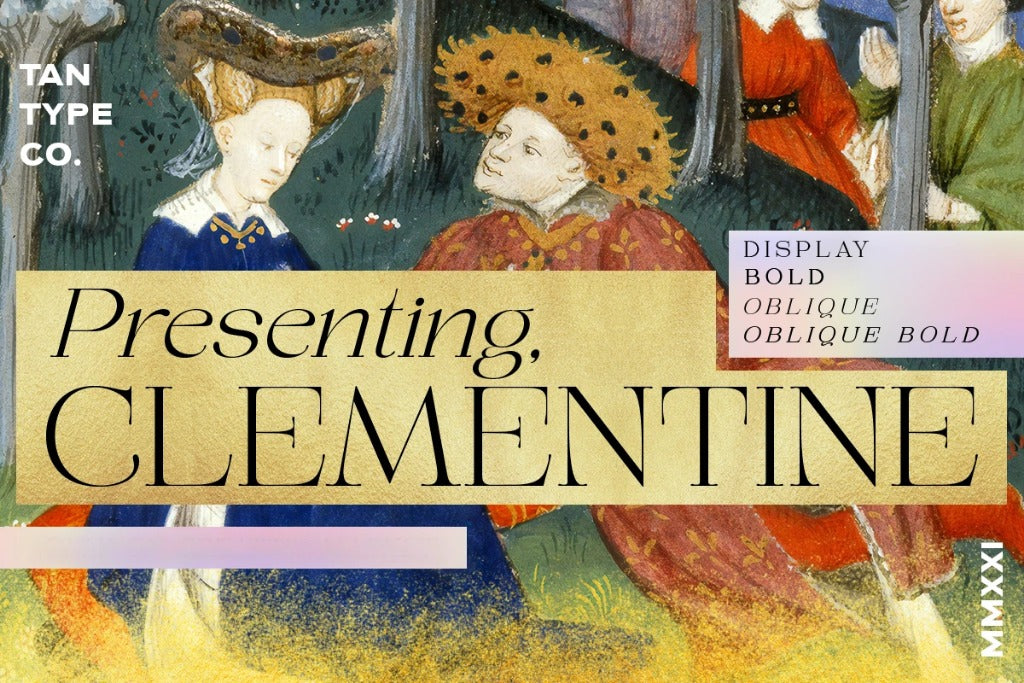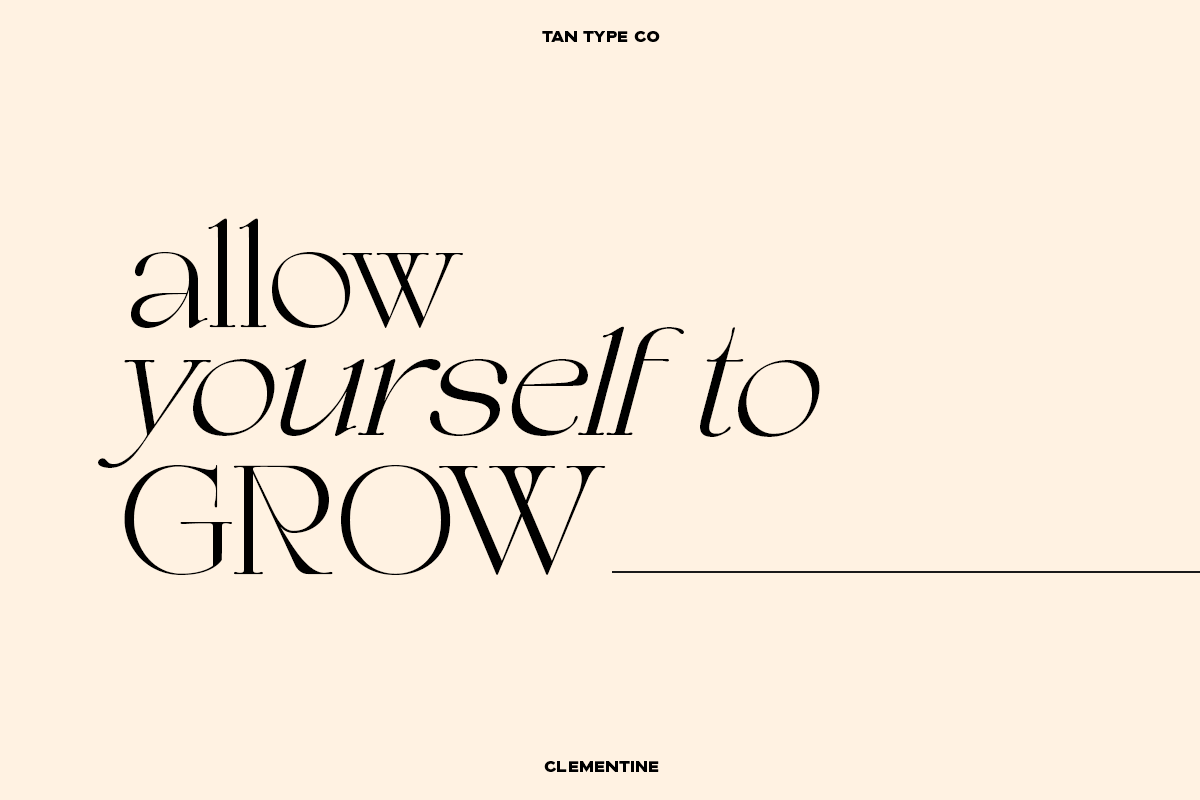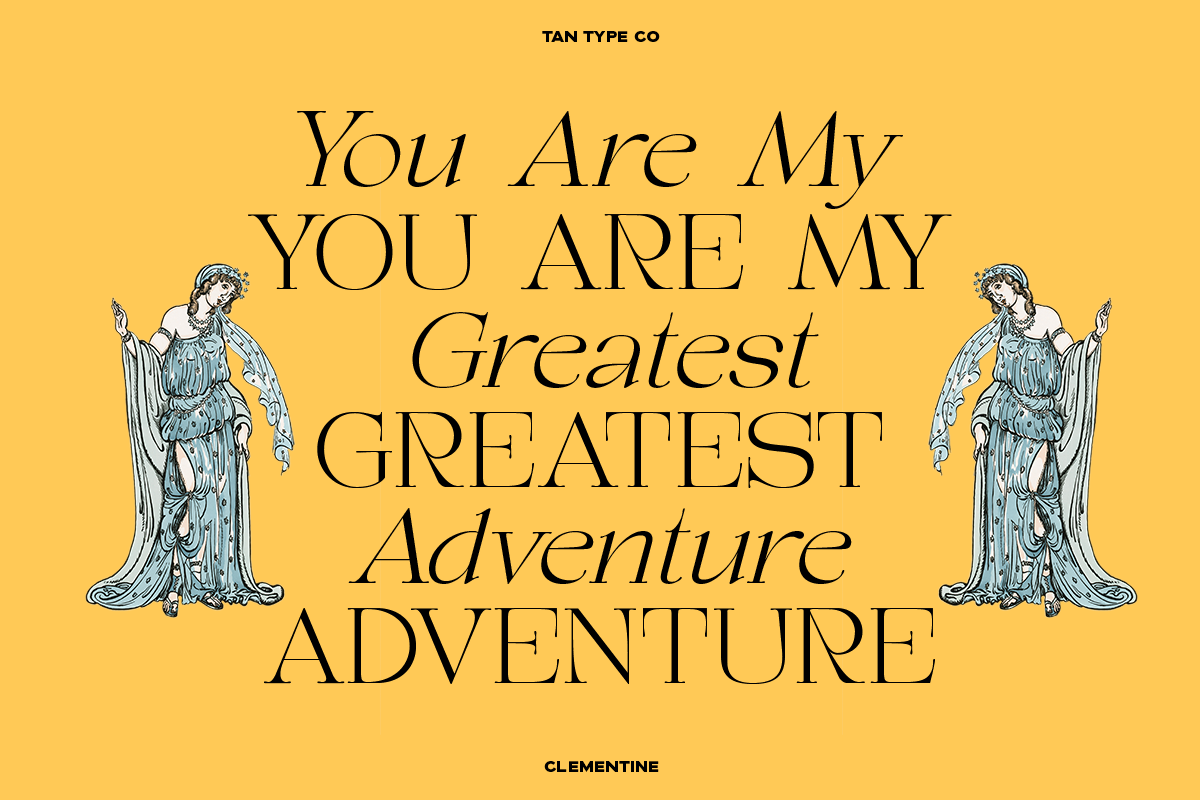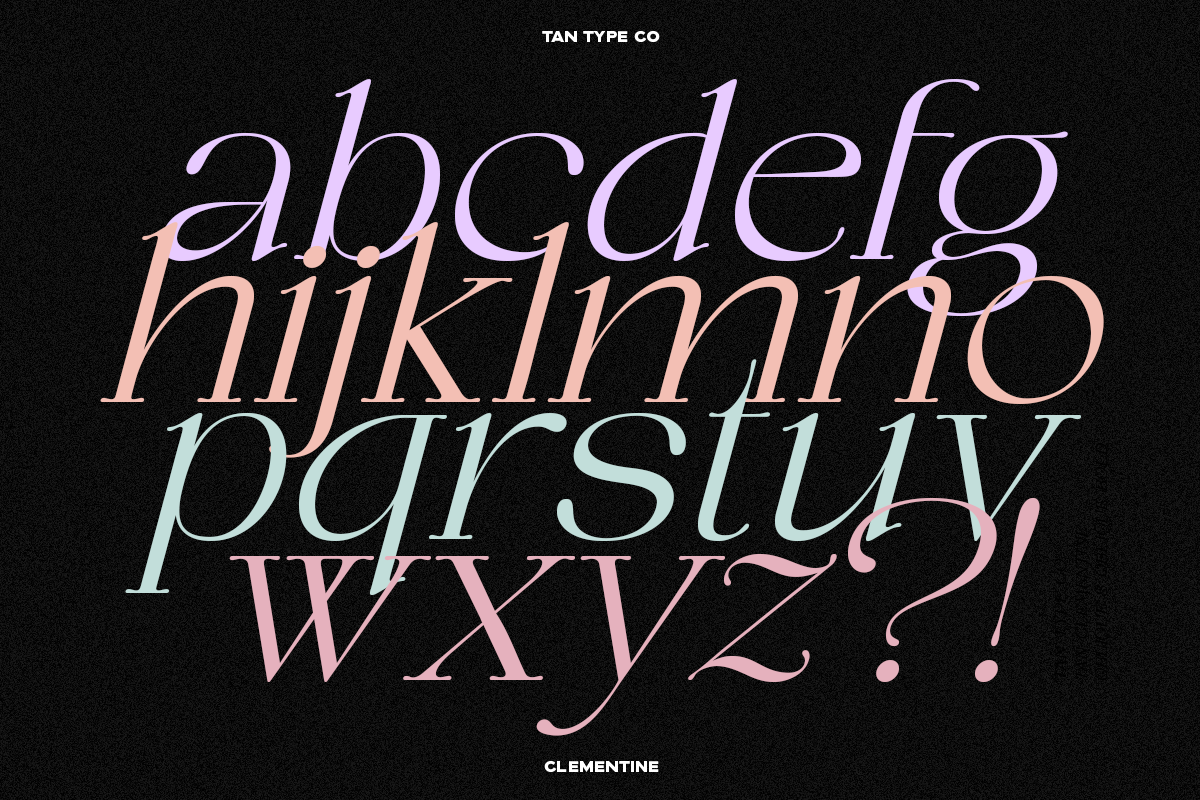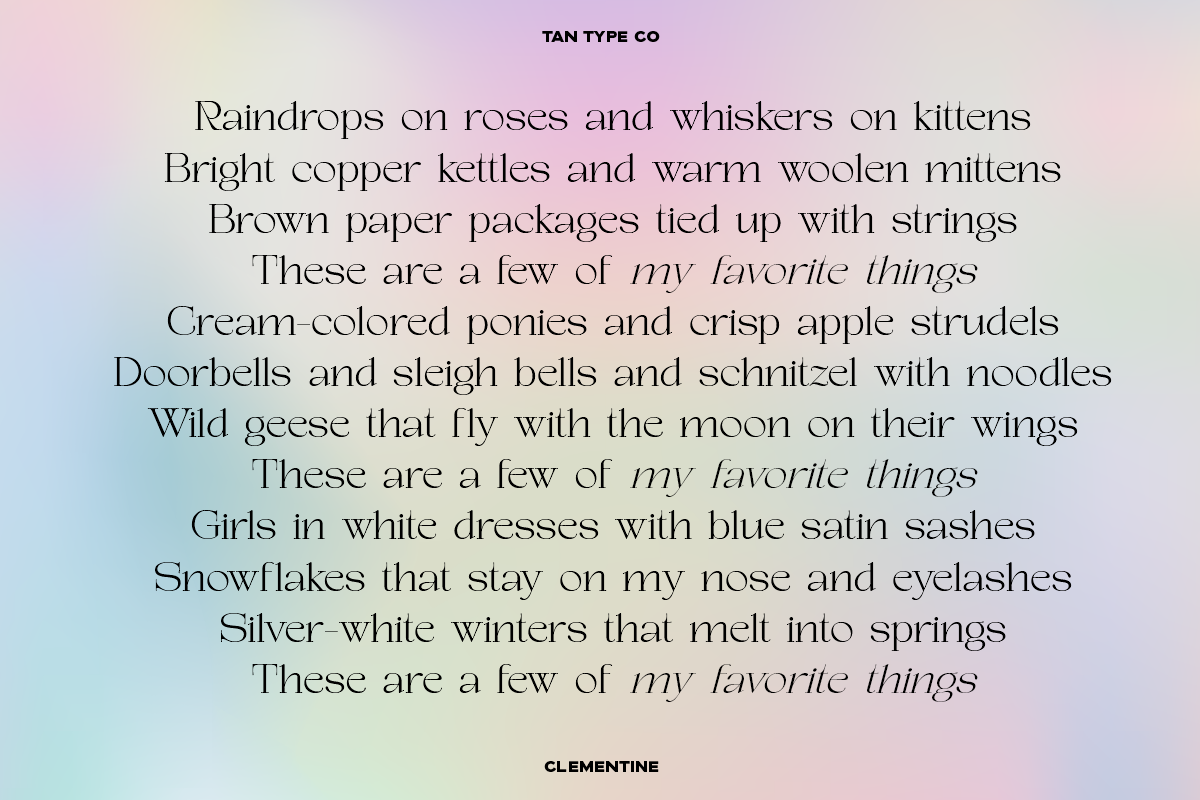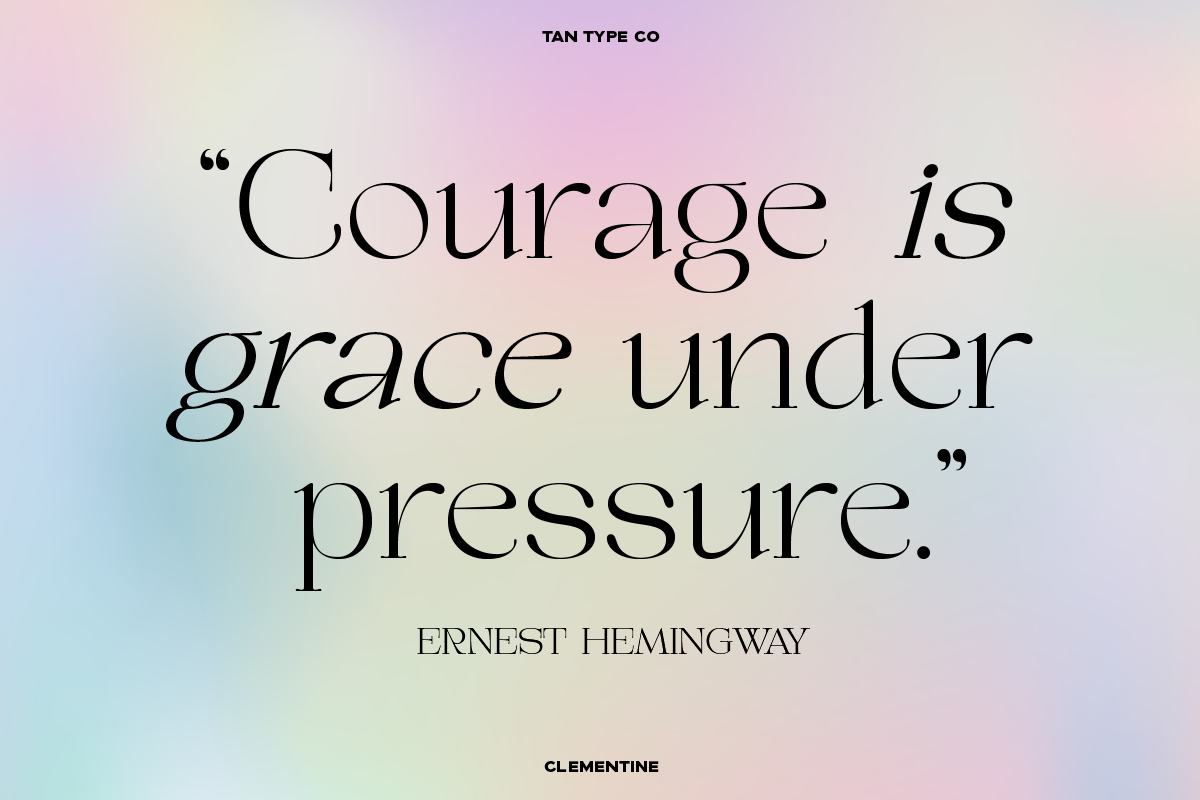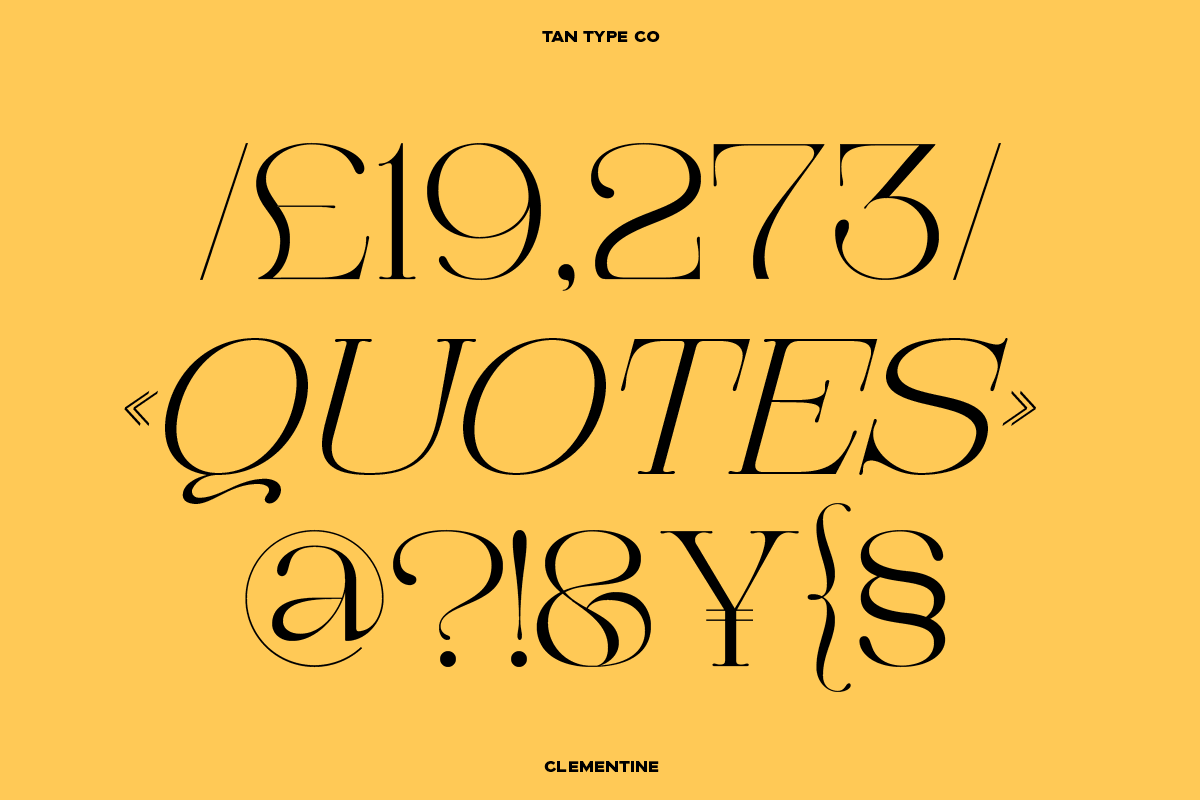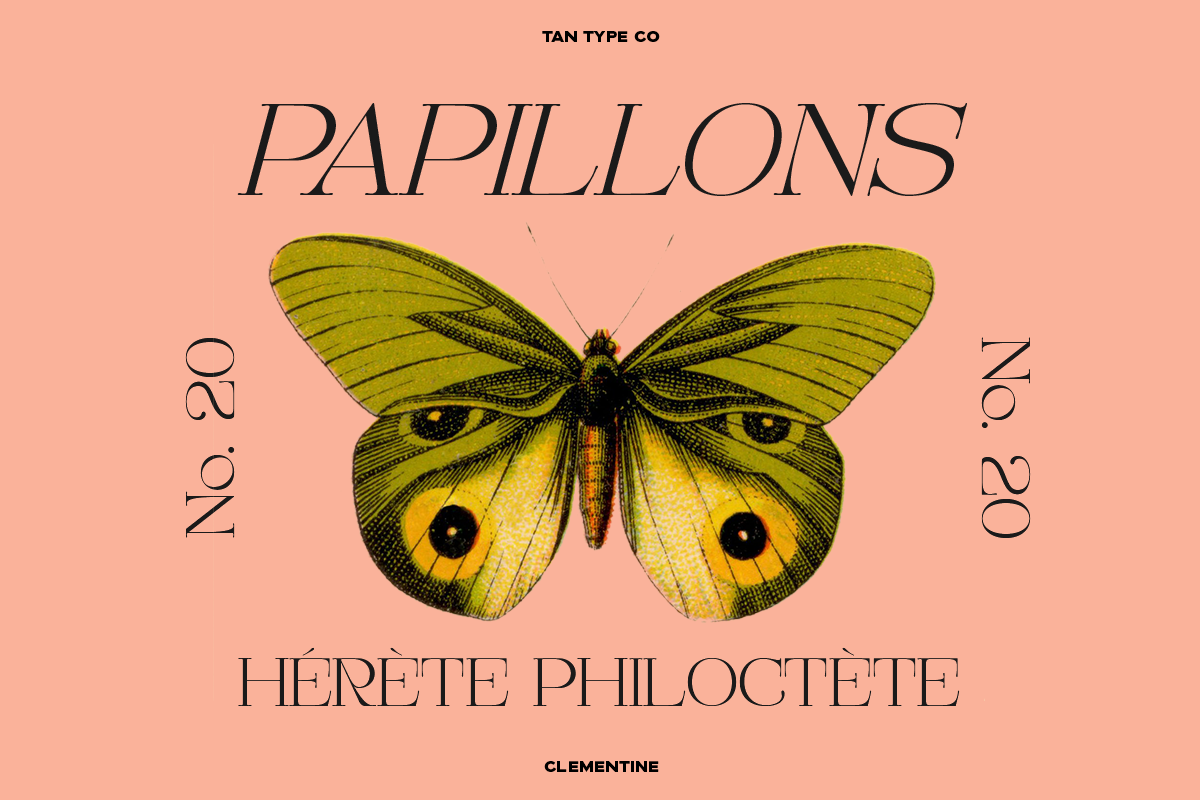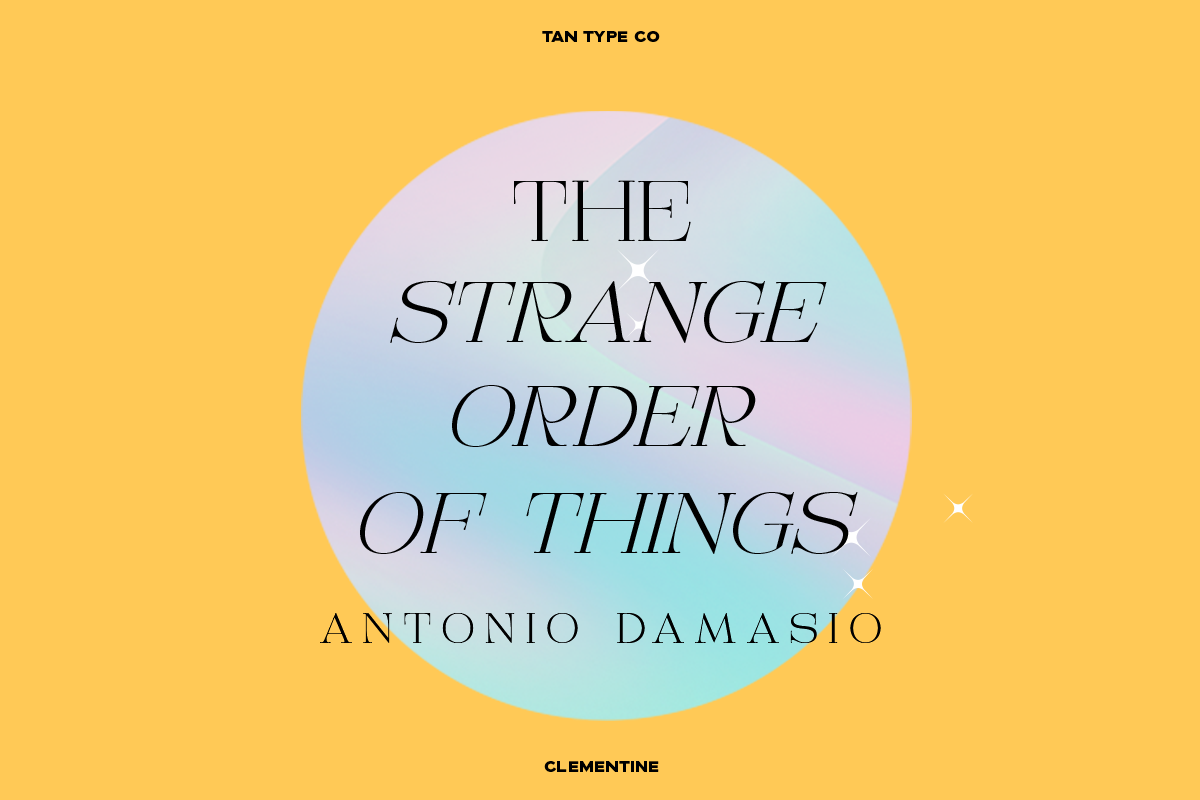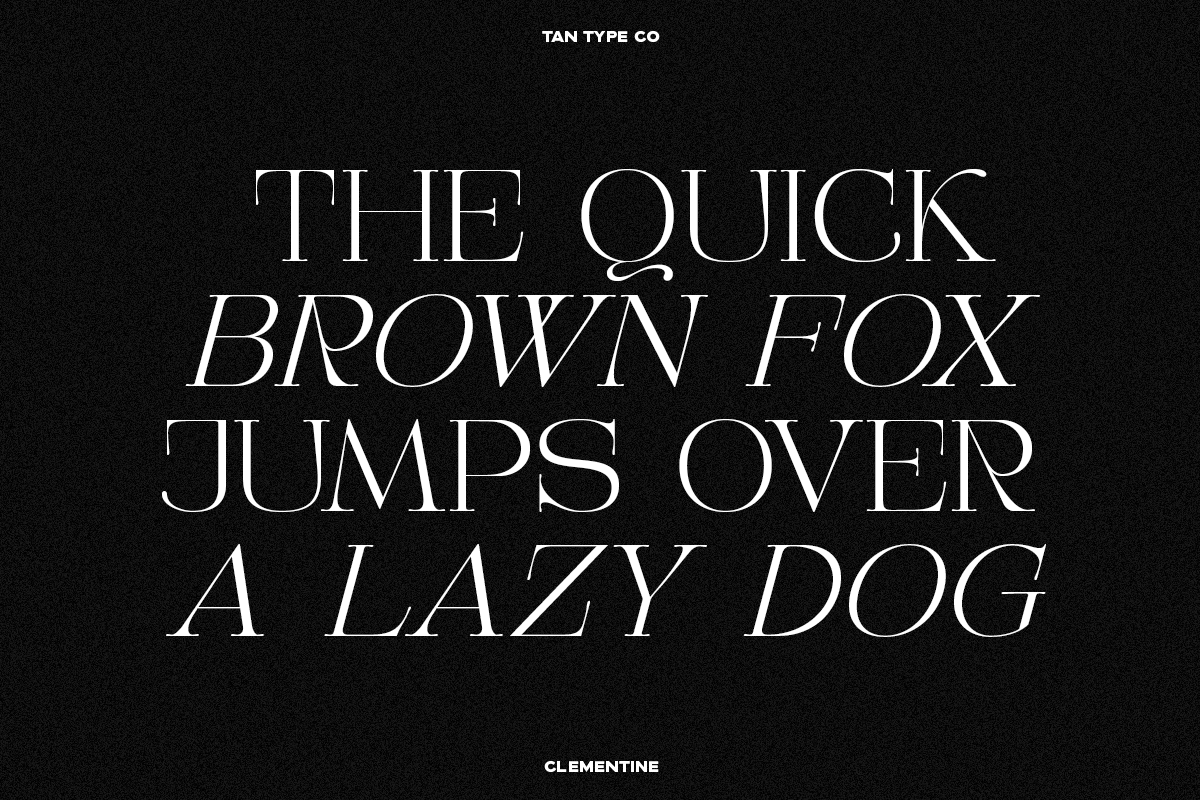
CLEMENTINE is a timeless serif display font that pairs classical elegance with modern versatility. With four refined styles—Regular, Bold, Oblique, and Oblique Bold—Clementine effortlessly balances sophistication and readability.